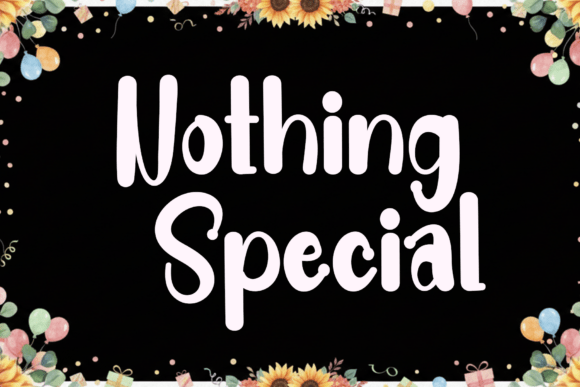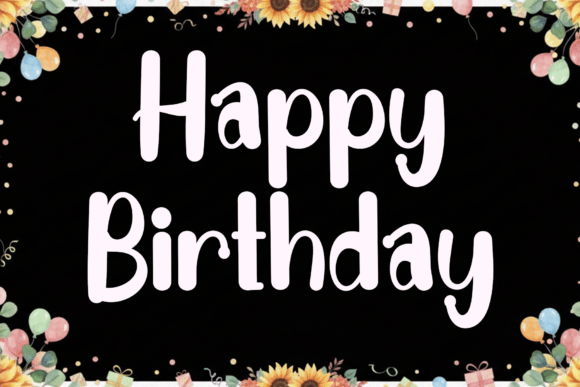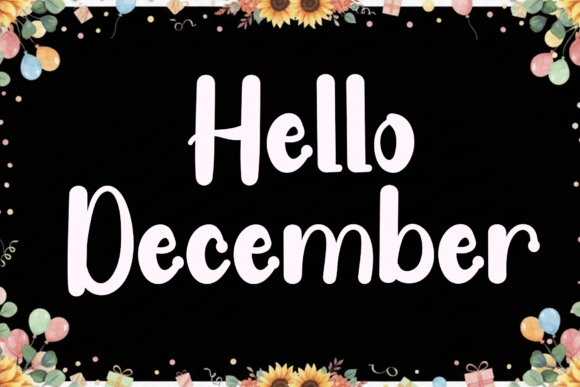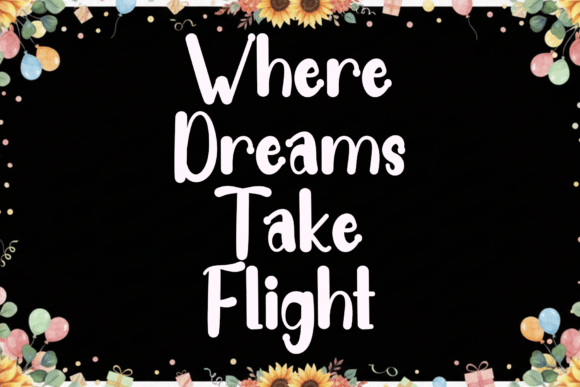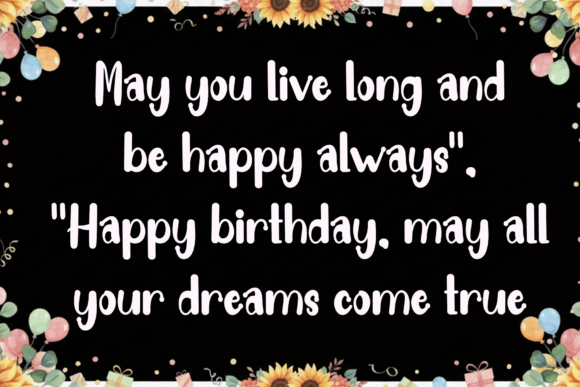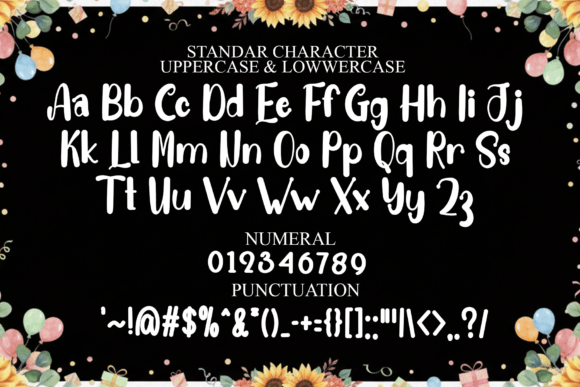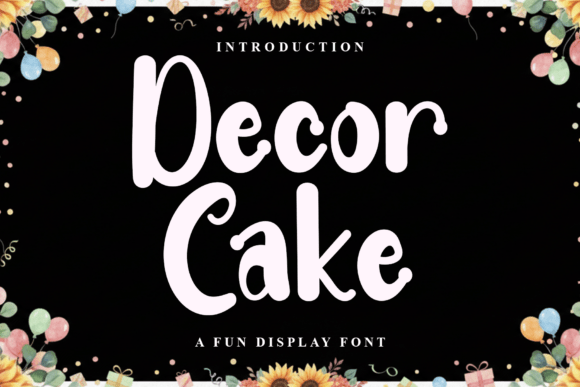
Introducing Decor Cake Font: The Ultimate Holiday Typeface
The holiday season is upon us, and what better way to get into the spirit than with a festive and merry typeface? Look no further than Decor Cake Font, a whimsical and decorative font that’s perfect for adding a touch of enchantment to your designs. In this article, we’ll dive into the world of Decor Cake Font, exploring its features, uses, and benefits for designers and crafters alike.
Decor Cake Font is a unique and eye-catching typeface that captures the essence of the holiday season. Its decorative elements and whimsical flair make it the perfect choice for greeting cards, gift tags, and holiday-themed projects. With Decor Cake Font, you can add a cheerful and nostalgic ambiance to your words, making your designs truly special.
Whether you’re a professional designer or a crafter looking to add a personal touch to your projects, Decor Cake Font is the perfect choice. Its versatility and ease of use make it suitable for a wide range of applications, from digital designs to handmade crafts. With Decor Cake Font, you can create stunning holiday-themed designs that will leave a lasting impression.
With Decor Cake Font, the design possibilities are endless. Here are just a few ideas to get you started:
- Create stunning holiday greeting cards and gift tags
- Design festive and eye-catching social media graphics
- Add a personal touch to your holiday-themed crafts and DIY projects
- Develop beautiful and unique holiday-themed website headers and banners
Tips and Tricks for Using Decor Cake Font
To get the most out of Decor Cake Font, here are a few tips and tricks to keep in mind:
- Experiment with different font sizes and colors to create visual interest
- Combine Decor Cake Font with other fonts to create a unique and eye-catching design
- Use the glyphs and ligatures to add decorative elements to your designs
Key Features of Decor Cake Font
- Festive and merry typeface perfect for holiday-themed designs
- Decorative elements and whimsical flair add a touch of enchantment to your designs
- Perfect for greeting cards, gift tags, and holiday-themed projects
- Versatile and easy to use for designers and crafters alike